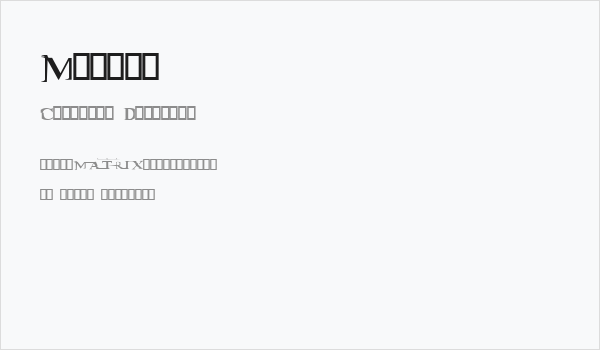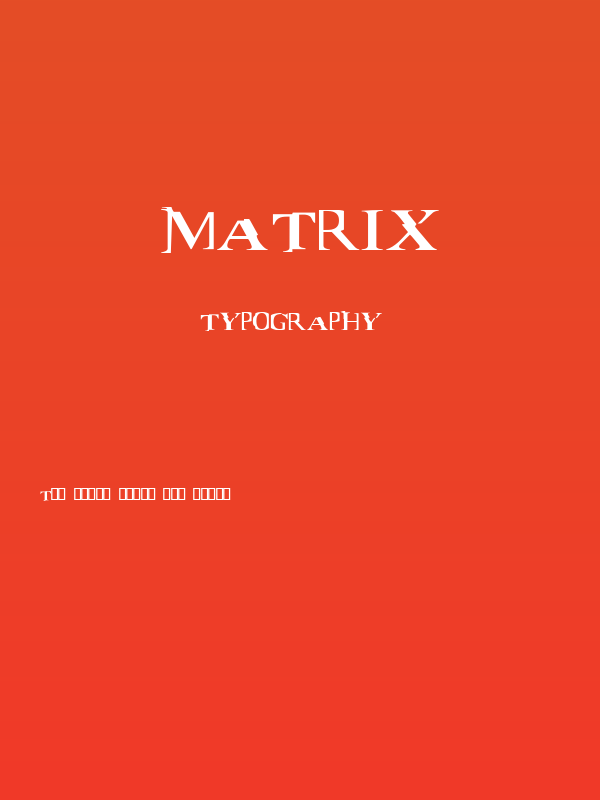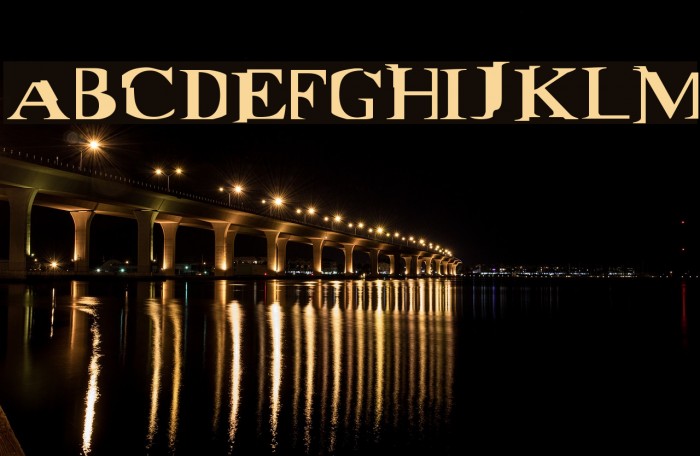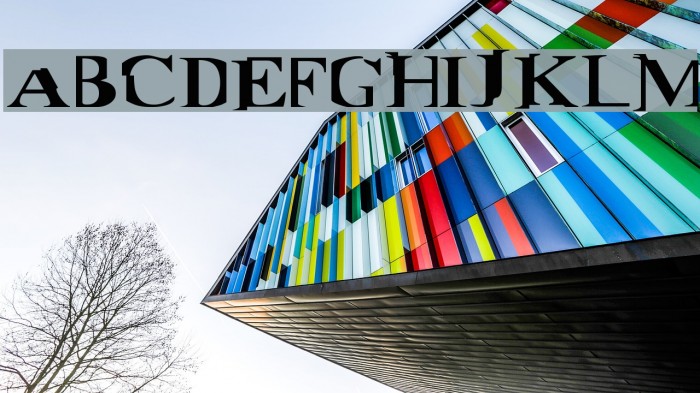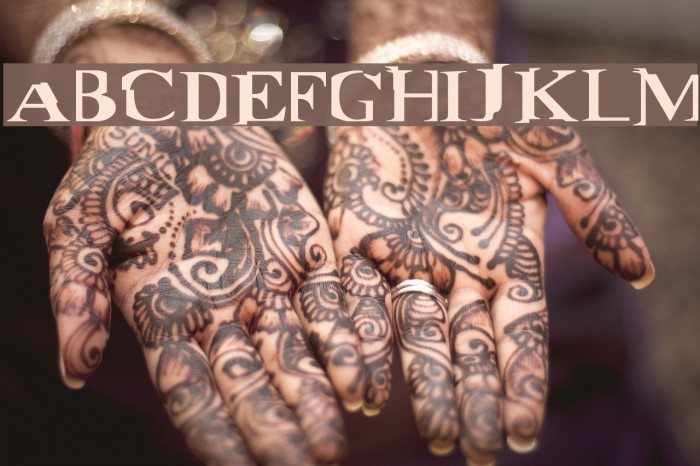
Matrix Font
Matrix Description
This font features a bold and striking design with sharp, angular serifs and a distinctively modern flair. The uppercase letters exhibit a strong presence with their thick strokes and pointed edges, creating a sense of authority and sophistication. The overall style is reminiscent of classic serif fonts but with a contemporary twist, making it suitable for impactful headlines and titles. The absence of lowercase letters and numbers suggests a focus on decorative and display purposes, emphasizing its use in branding and logo design. The font's unique character shapes and high contrast between thick and thin strokes contribute to its dramatic and eye-catching appearance.
| Proposed Projects | Ideal for branding, logo design, headlines, and titles where a strong, authoritative presence is desired. |